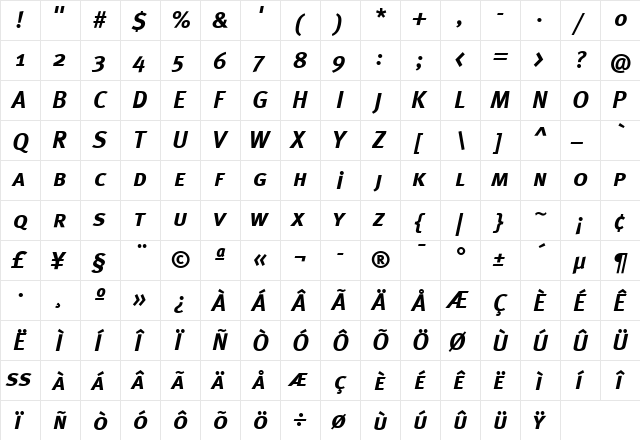
MetaBoldTurk Medium
Design Context for MetaBoldTurk Typeface
MetaBoldTurk is a composed and adaptable typeface that performs quietly and consistently across a wide range of design contexts. The heavy weight commands attention and anchors typographic hierarchies.